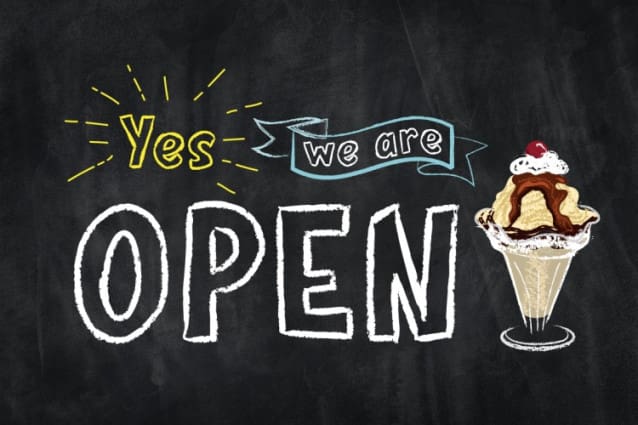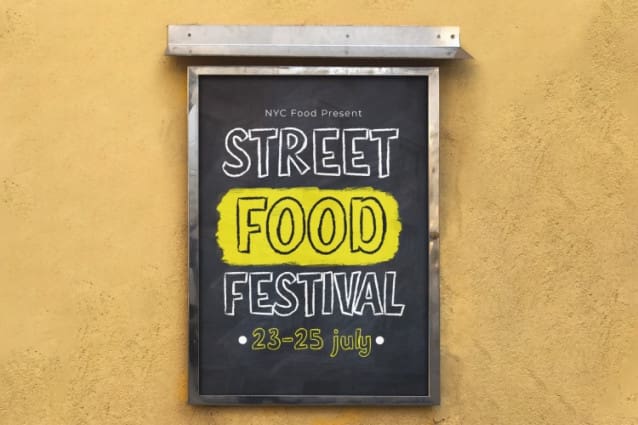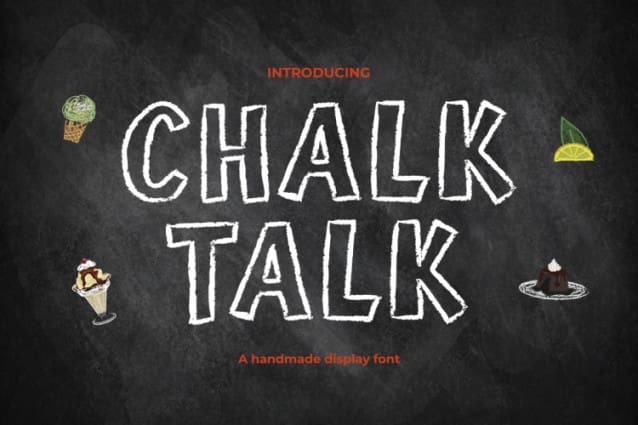
Chalk Talk Font
Chalk Talk Font is a playful, handmade display font that captures the nostalgic charm of chalkboard writing. This typeface, with its rough edges and textured lines, brings the feel of classic chalk to any design. Each letter appears carefully drawn on a chalkboard, adding a personal and authentic touch. Moreover, the imperfect, hand-drawn quality gives Chalk Talk a friendly and approachable feel, making it ideal for designs that aim to be engaging and warm.
Additionally, with its bold, outlined letters, handwriting font Chalk Talk is both eye-catching and highly readable. The font’s texture closely mimics real chalk, adding authenticity and a casual vibe. Whether used for headings, signage, or decorative text, Chalk Talk adds energy and character to any project. Furthermore, its unique style makes it a standout choice for visuals that need a sense of fun. This versatile font works in both digital and print formats, making it suitable for various creative projects.